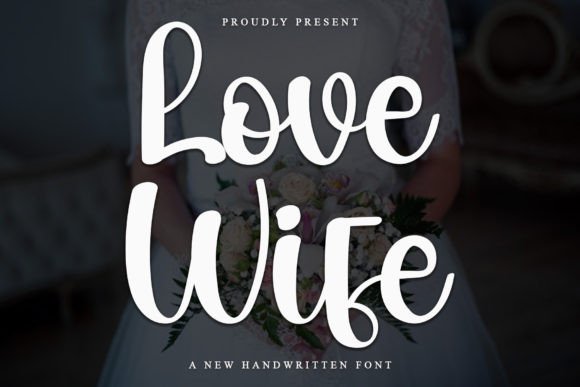
Feast your eyes on the awe-inspiring Love Wife Font, a breathtaking creation from the minds of PiPi Creative. This exquisite handwritten font dances across the digital canvas with its elegant curves and captivating strokes, leaving a trail of beauty in its wake. Its name, Love Wife, is a testament to its intrinsic charm and romantic aura, evoking a sense of timeless affection and devotion.
Beyond its captivating aesthetics, the Love Wife Font is a versatile performer, effortlessly adapting to a myriad of design endeavors. Its delicate script style lends itself seamlessly to wedding invitations, heartfelt letters, and social media posts, effortlessly conveying emotions and adding a touch of personal flair. Embrace the Love Wife Font as your creative companion and watch as your projects blossom into masterpieces, captivating the hearts of all who behold them.
Immerse yourself in the Love Wife Font's captivating embrace and let your imagination soar. Its graceful lines and flowing curves will enhance your designs with a touch of elegance and sophistication, leaving an unforgettable impression on your audience. Whether you're crafting logos, branding materials, or simply adding a touch of charm to your personal projects, the Love Wife Font is your perfect partner.
With the Love Wife Font by your side, you hold the key to unlocking a world of creative possibilities. Its timeless beauty and versatility will elevate your projects to new heights, ensuring they leave a lasting impact on all who encounter them. Join the ranks of satisfied users who have discovered the magic of the Love Wife Font and elevate your designs to extraordinary.